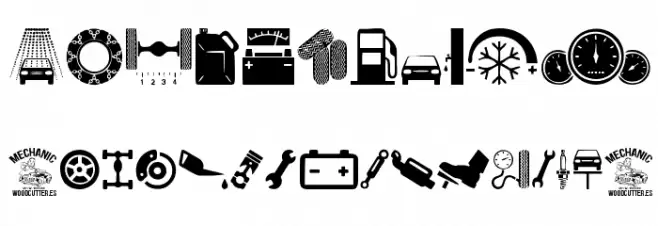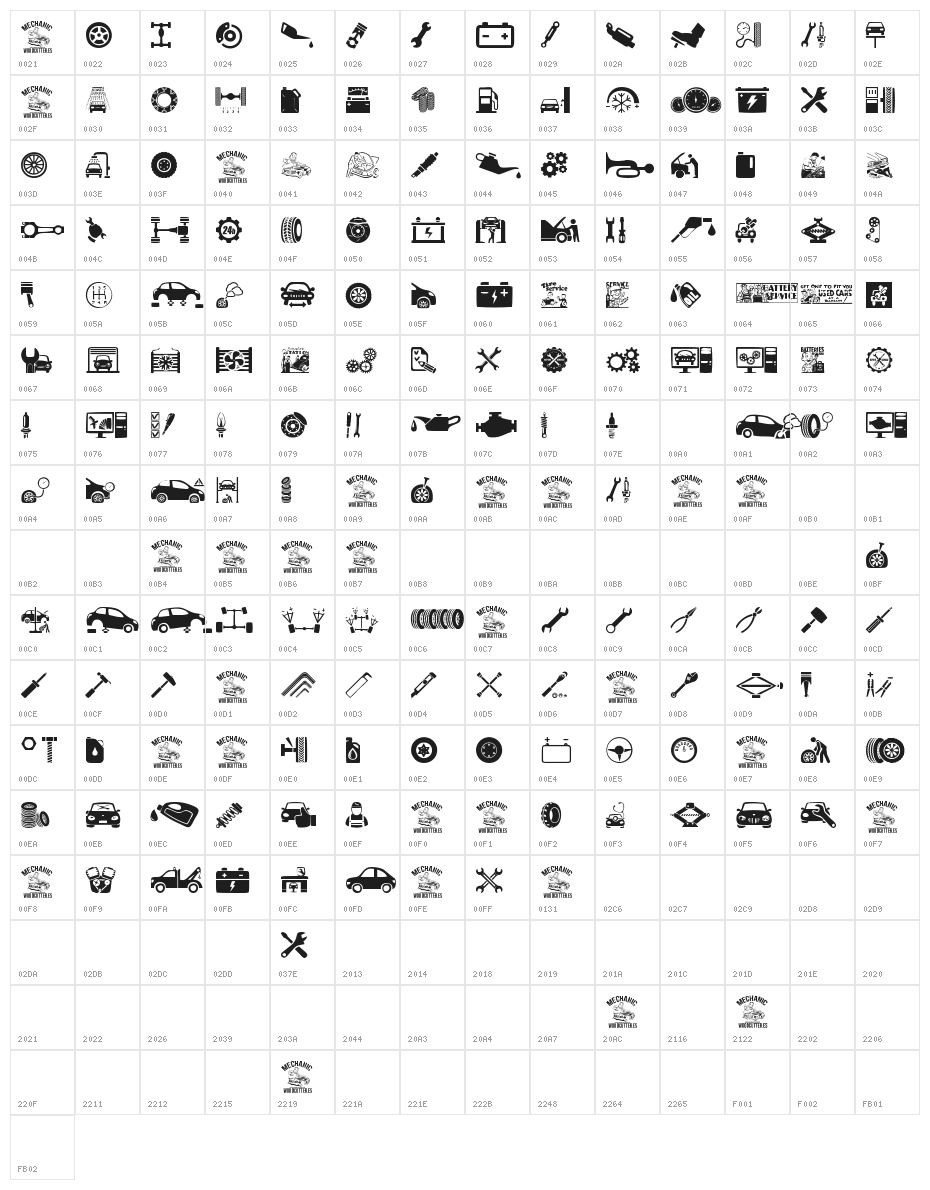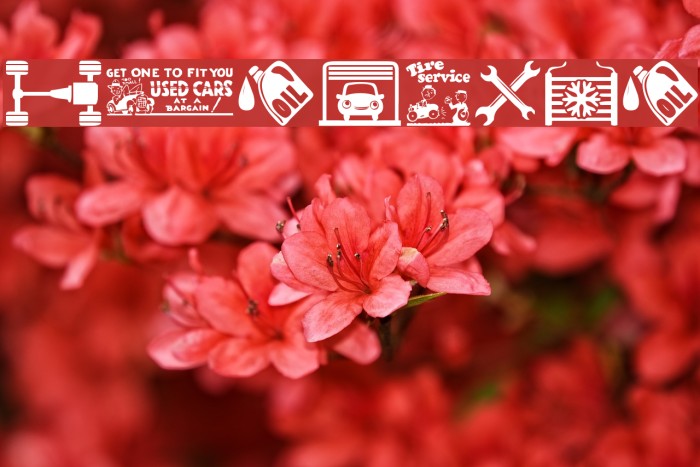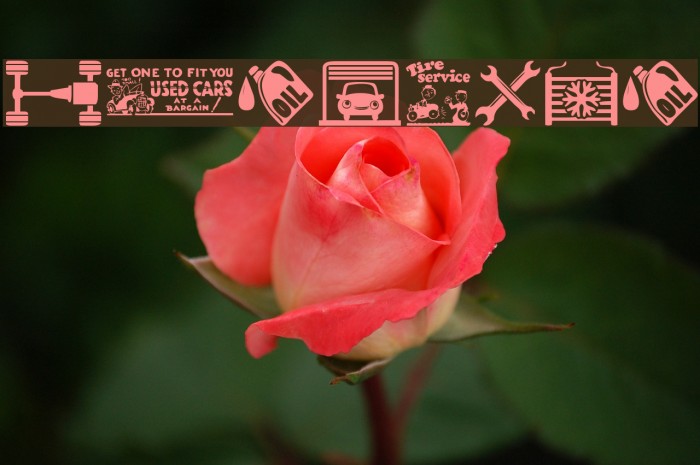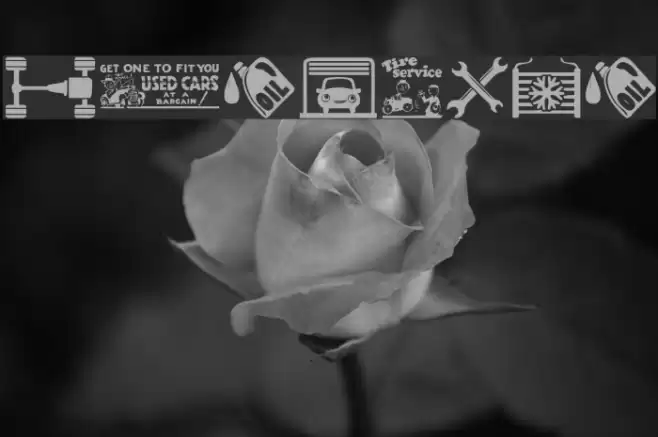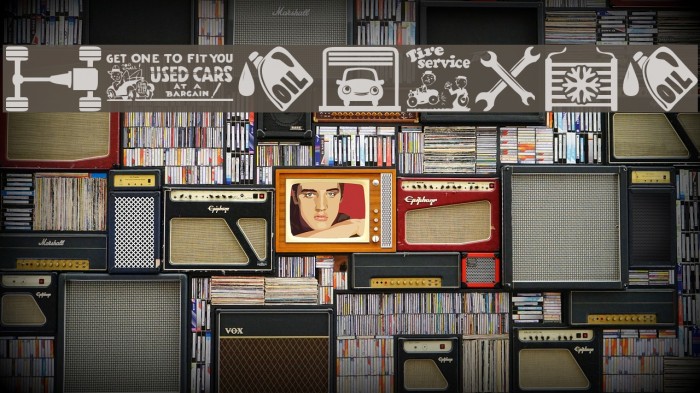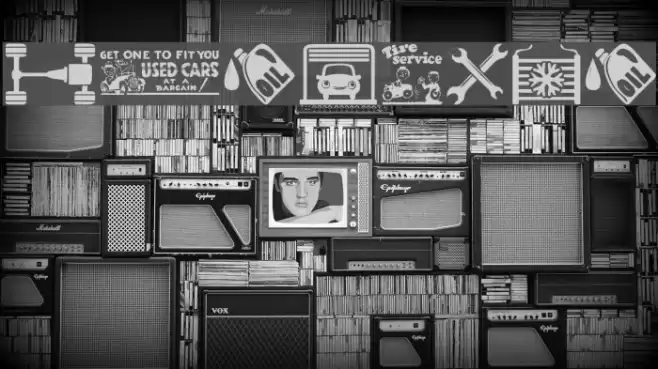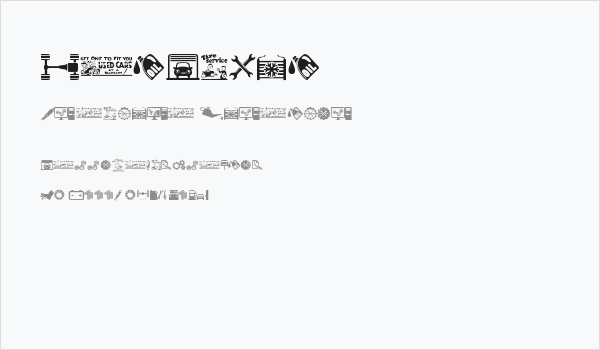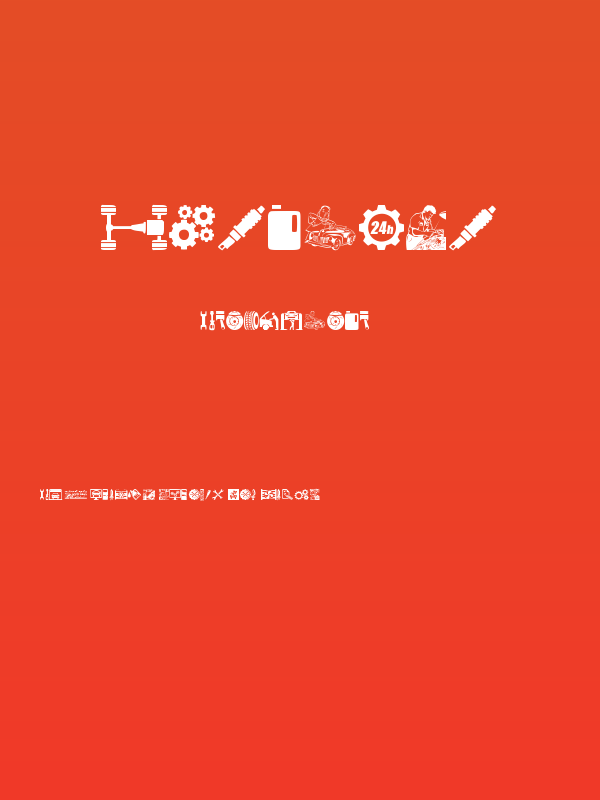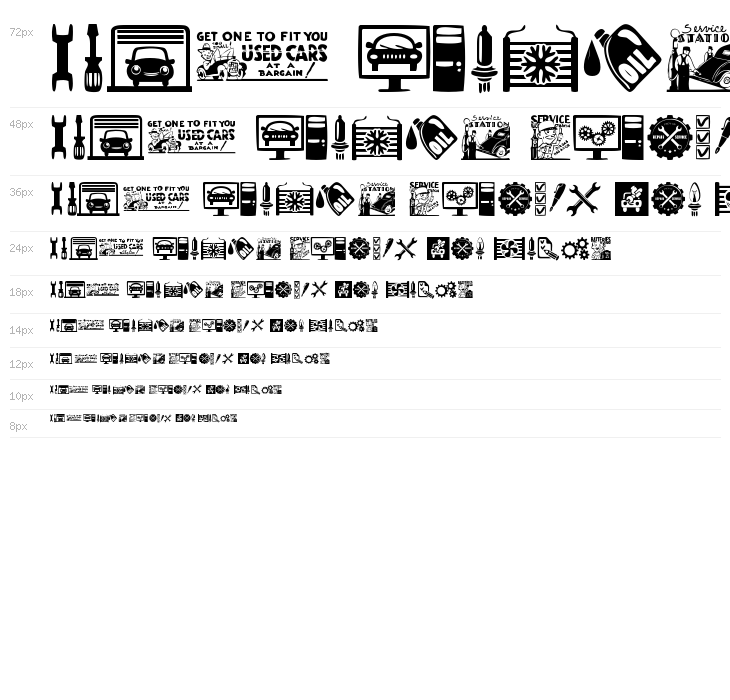
Mechanic Font
Mechanic Description
A pictogram-based dingbat font featuring a wide variety of automotive and mechanic-themed icons, including tools, car parts, service symbols, and dashboard indicators. The icons are bold, solid, and highly legible, designed in a consistent black silhouette style.
| Overall Style | Decorative, Thematic, Modern |
| Use Case | Icons, Logos, Signage, Infographics |
| Proposed Projects | Auto repair shop branding, mechanic business cards, instructional manuals, signage, infographics, educational materials, and themed event posters. |